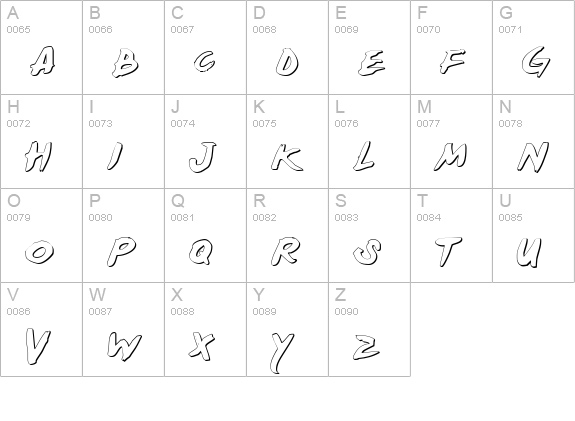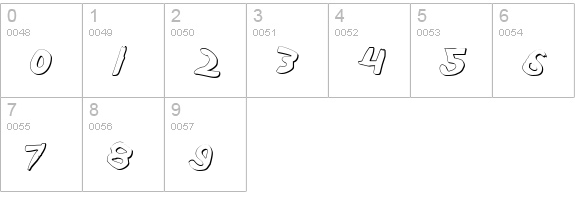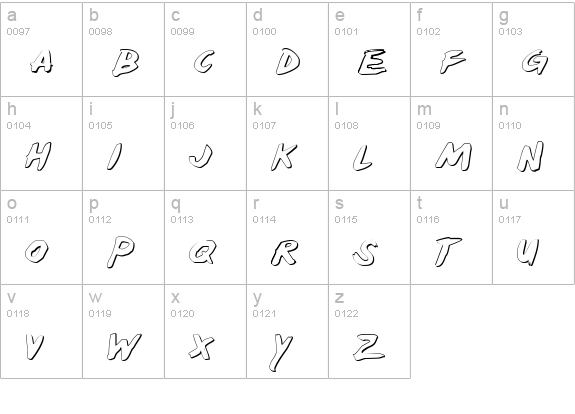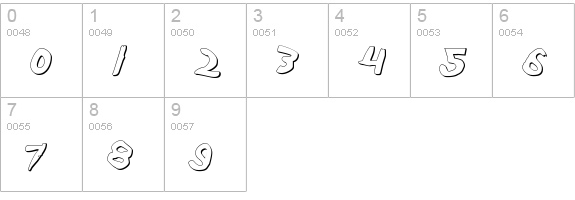
Yellowjacket Shadow Font Details
Yellowjacket Shadow font is a unique and eye-catching typeface that combines vintage charm with a modern twist. Its bold and striking appearance makes it perfect for headlines, posters, and branding projects. The shadow effect adds depth and dimension to each letter, creating a dynamic and captivating look. What sets Yellowjacket Shadow font apart is not only its design, but also its accessibility. This font is available for free download at FontsMarket.com, making it easy for designers and creatives to add a touch of personality and style to their projects without breaking the bank. Whether you're working on a retro-inspired design or looking to make a statement with your typography, Yellowjacket Shadow font is a versatile choice that is sure to impress. Download it for free today and start creating stunning visuals that stand out from the crowd.